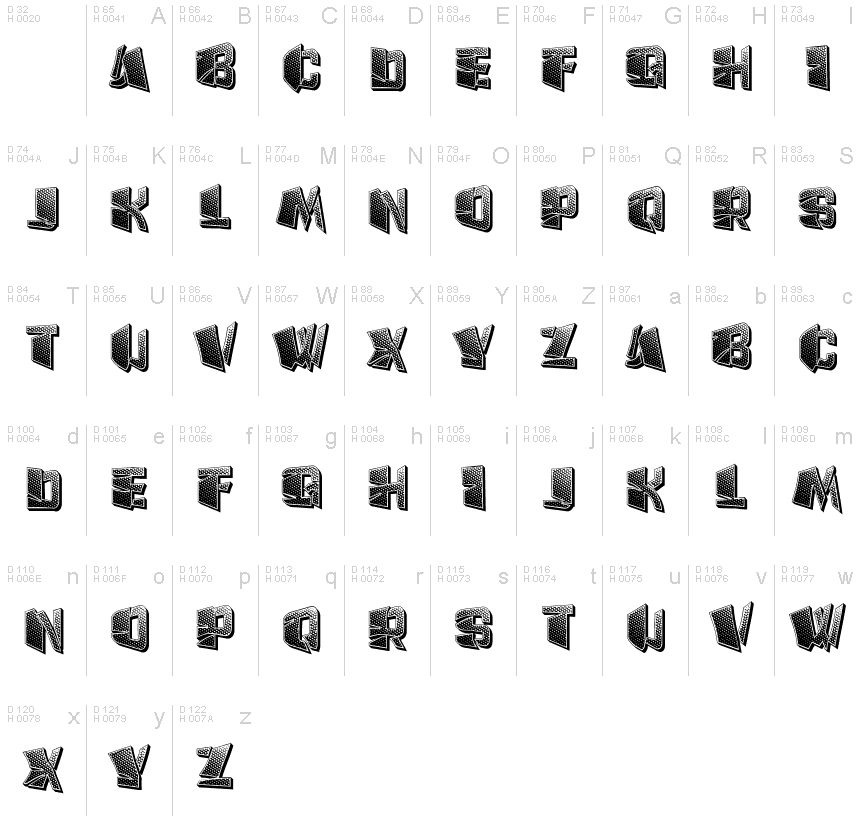
Cream Gradient font is a bold display typeface designed by Vladimir Nikolic.
"Cream" comes in Regular, Splashed, Filled and Gradient variant!
Cream Gradient